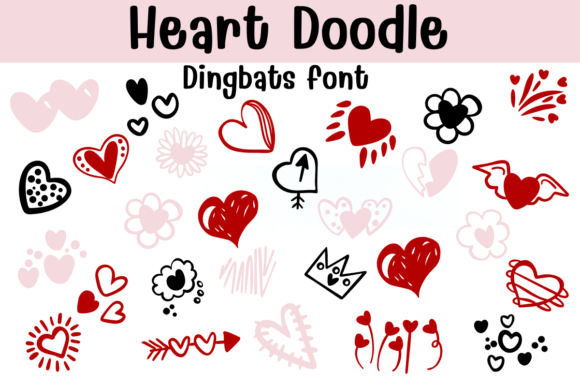
The Perfect Match for Your Designs: Heart Doodle Font
As a designer, there’s nothing quite like the thrill of creating something special for a loved one. Whether it’s a custom wedding invitation, a birthday card for a sweetheart, or a romantic social media post, you know that the right design elements can make all the difference. And that’s exactly where the Heart Doodle Font comes in – a charming collection of dingbats, hearts, and flowers that’s sure to capture the essence of love and affection.
This delightful font is packed with all the elements you need to create romantic and whimsical designs that will leave a lasting impression. With its playful doodles, cute flowers, and adorable heart shapes, the Heart Doodle Font is the perfect addition to any designer’s toolkit. Whether you’re working on a Valentine’s Day project or just want to add a touch of sweetness to your designs, this font is sure to be a valuable asset in your creative arsenal.
Key Features of Heart Doodle Font
- Unique Characteristics: The Heart Doodle Font features a hand-drawn, doodle-style design with a mix of cursive and script elements, creating a playful and romantic feel.
- Character Set: The font includes a wide range of characters, including uppercase and lowercase letters, numbers, punctuation marks, and special characters.
Heart Doodle Font Review
Overall, I think the Heart Doodle Font is a cute and playful addition to any design project. ✨ The hand-drawn style and irregular shapes give it a unique, personal touch that’s hard to resist.
Some of the things that really work well for this font include:
- Its versatility – it can be used for a wide range of projects, from children’s books to social media graphics.
- Its emotional resonance – the heart-shaped doodles make it perfect for projects that need to convey love, kindness, or playfulness.
- It may not be the best choice for projects that require a more professional or formal tone.
- The irregular shapes can sometimes make it difficult to read, especially at smaller font sizes.
- It may not be the best choice for projects that require a lot of customisation or fine-tuning.
Overall, I think the Heart Doodle Font is a fun and creative addition to any design project. While it may not be the best choice for every project, it’s a great option for projects that need a little bit of whimsy and personality.
For optimal results, use the Heart Doodle Font in conjunction with bold colors and playful graphics.
Valentine’s Day and wedding invitations
Children’s birthday party decorations and invitations
Love-themed social media posts and graphics